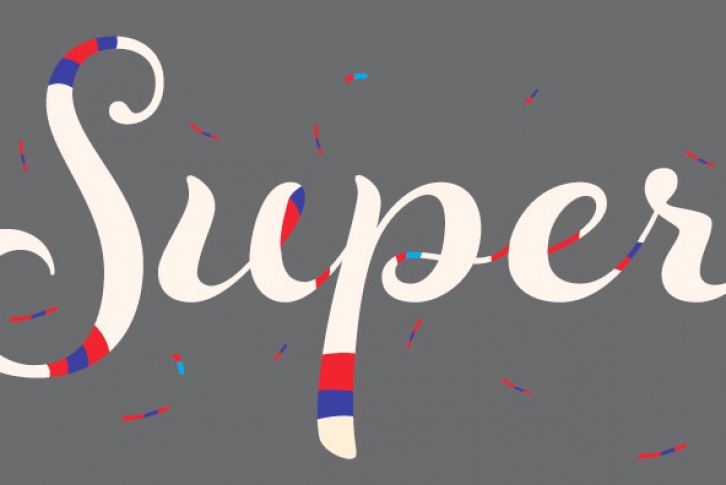
Rosarian celebrates the signpainterly grace of the pointed brush. Ink flows expressively from thick, rounded downstrokes to thin, delicate hairlines. Rosarian presents sensually rounded letterforms and distinctively doubled-up connections on the a, g, q, and u. Elegant swash capitals and alternates — 215 in all — lend it a fanciful look suggestive of Art Nouveau, with delicate curls that sprout like vines.
Contextual alternates help Rosarian look convincingly hand-lettered, while stylistic alternates allow you to set Rosarian as a less formal, unconnected script.